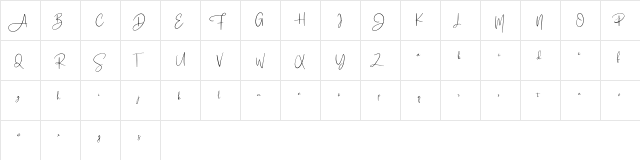
Poliesster Free Regular
| Foundry | MaulanaCreative |
| Designer | MaulanaCreative |
Design Context for Poliesster Free Typeface
Poliesster Free is a composed and adaptable typeface that performs quietly and consistently across a wide range of design contexts.